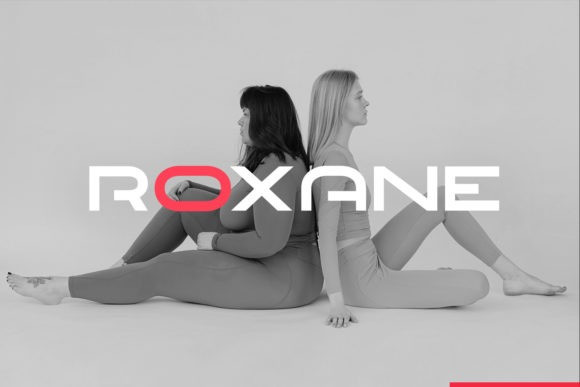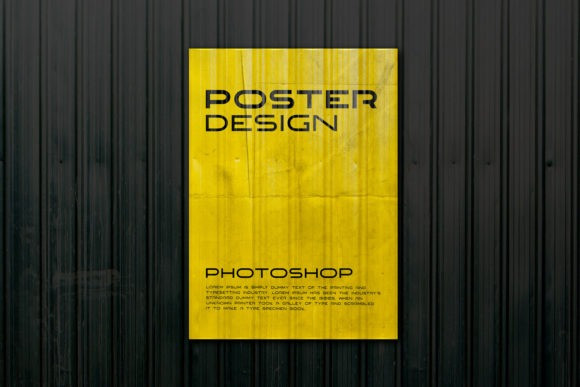
Roxane Font
Roxane is a cool and modern display font. Whether you’re using it for crafts, digital design, presentations, or making greeting cards, this font has the potential to become your favorite go-to font, no matter the occasion!